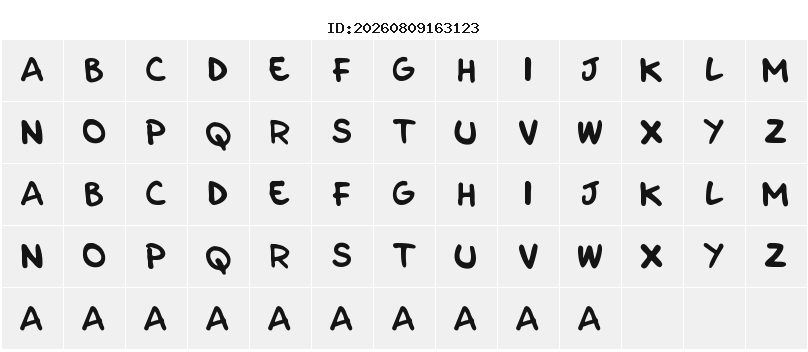
About Parla.ttf
Parla.ttf is a modern, elegant sans-serif font designed for ultimate readability and visual harmony. Perfect for branding, headlines, web design, and print materials.